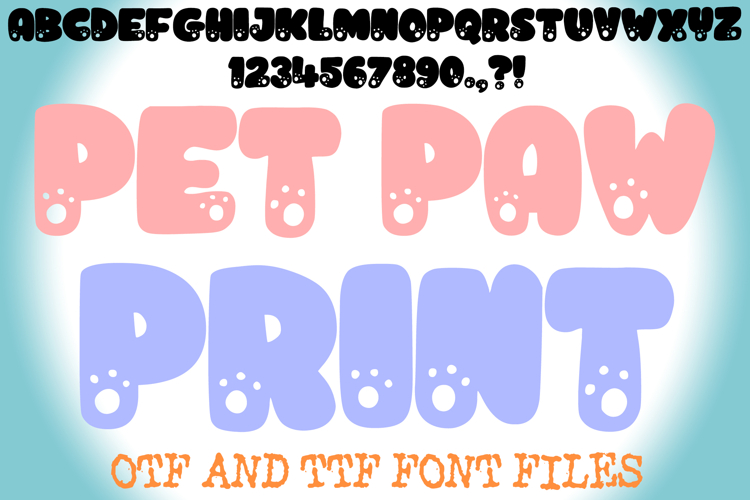
Pet Paw Print Handwriting Alphabet Lettering ABC Text Font
Leave adorable tracks on your designs with Pet Paw Print Font! This utterly charming typeface is perfect for all animal lovers, featuring plump, bubbly letterforms subtly enhanced with cute little paw print details. It's more than just a font; it's an instant dose of pet-themed joy, designed to bring heartwarming cuteness, playful energy, and an undeniable sprinkle of fun to any creative project!
Each character in Pet Paw Print Font is crafted with a sweet, rounded outline, and its interior features delightful, subtle paw print accents, creating a unique and endearing visual effect. This makes it an ideal choice for pet store branding, dog grooming salons, animal rescue events, children's books, nursery decor, pet-themed party invitations, veterinary clinics, or any design calling for a unique blend of cuteness, affection, and playful charm.
Whether you're creating lively event promotions, designing adorable product packaging for pets, crafting loving social media posts for animal organizations, or adding a cheerful touch to digital art, this font will bring an undeniable sense of fun, originality, and a vibrant, affectionate aesthetic to your work. Its clear yet bubbly forms ensure readability while delivering a memorable visual experience.
If you're looking to infuse your designs with a sense of playful warmth, charming cuteness, and an undeniable touch of pet love, Pet Paw Print Font is your ultimate tool. Let your creativity make happy paw prints!